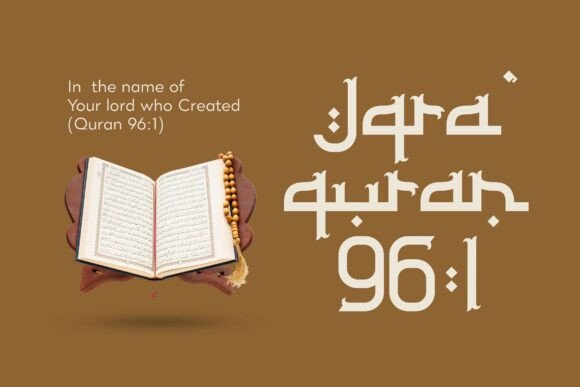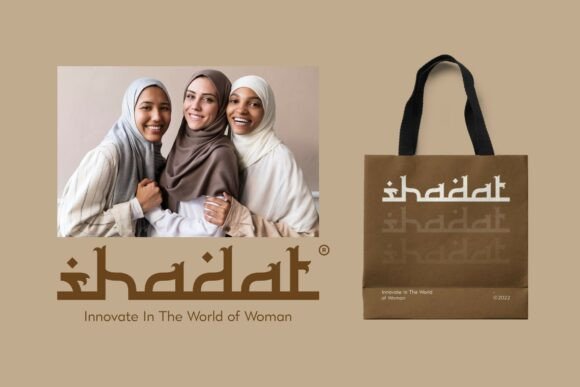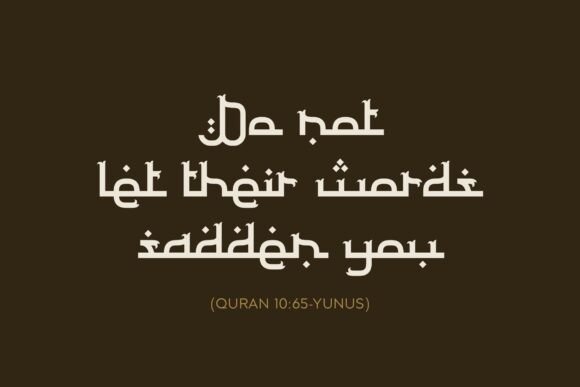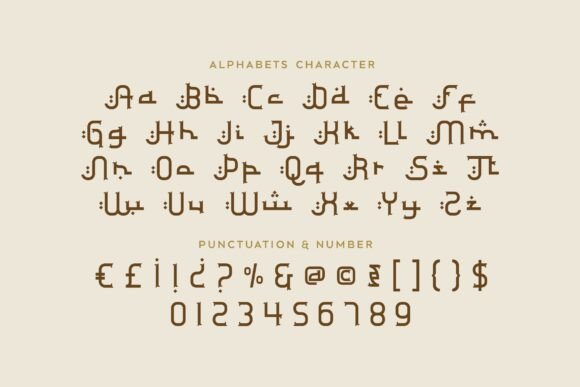
Introduction to Jamillah Font
Jamillah is a modern Islamic font that blends geometric precision with graceful, flowing forms inspired by Arabic calligraphy.
Its bold yet elegant strokes create a unique balance between tradition and contemporary design Perfect for Eid and Ramadan campaigns, halal/food and travel branding, packaging, editorial headlines, posters, invitations, social content where you want a refined Middle Eastern flavor, and a variety of design or artistic projects that feature an Islamic cultural theme.